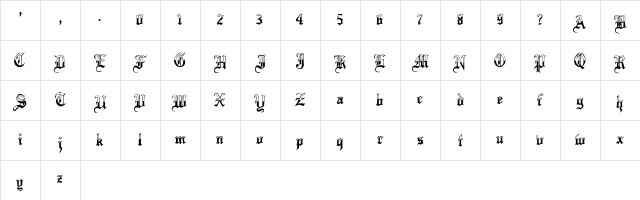
Minnesota Winter Regular Free Font
Minnesota Winter Regular
Designer: Tom Kolter
Design Context for Minnesota Winter
Minnesota Winter is a composed and adaptable typeface that performs quietly and consistently across a wide range of design contexts.